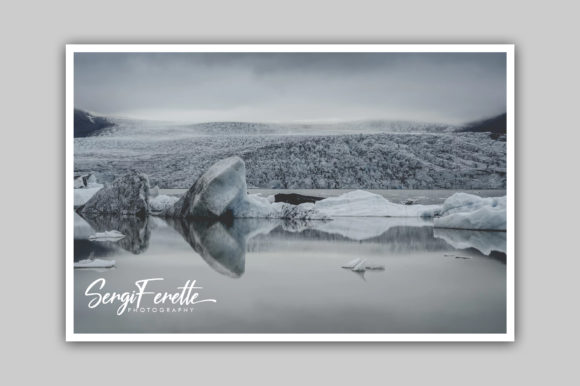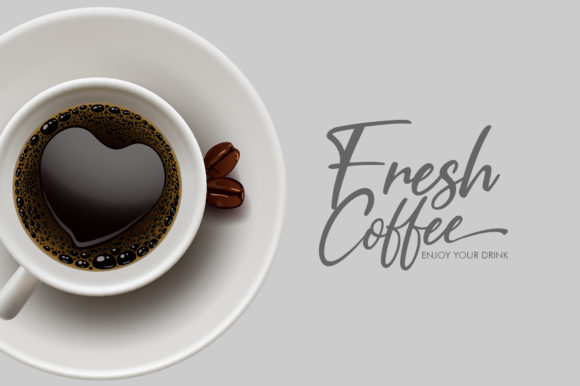
Silver Pen Script Font
db-ku.com - Script & Handwritten -- The Silver Pen is a fresh and unique script font. It has a fun and elegant feel which can be used to create your own logo, poster, wedding invitation, and much more!